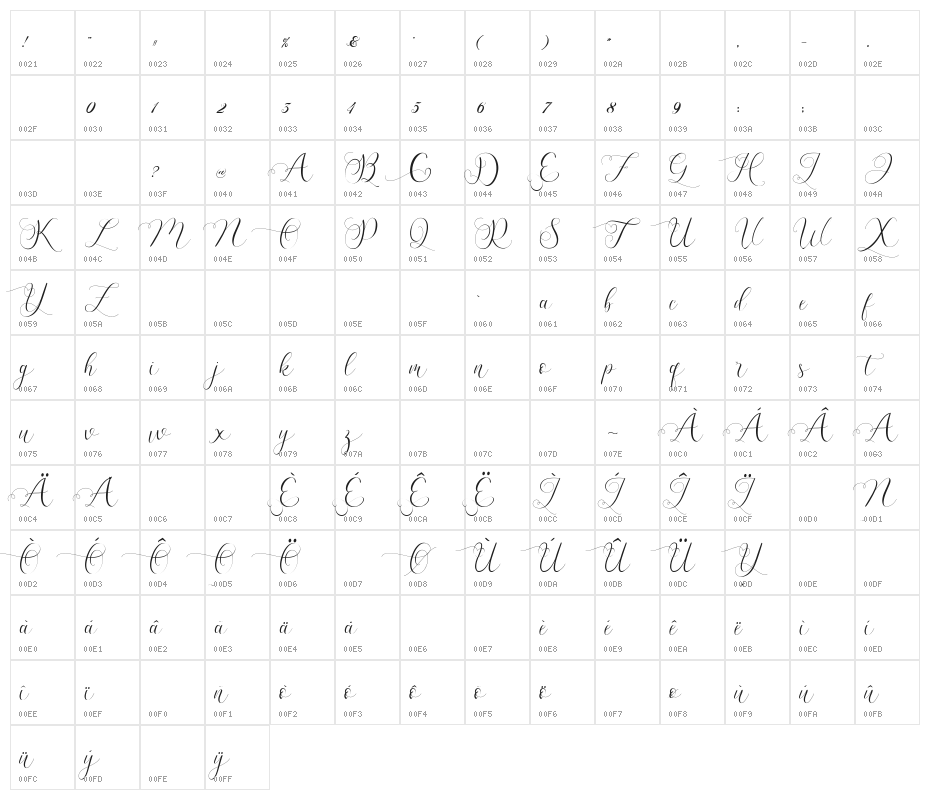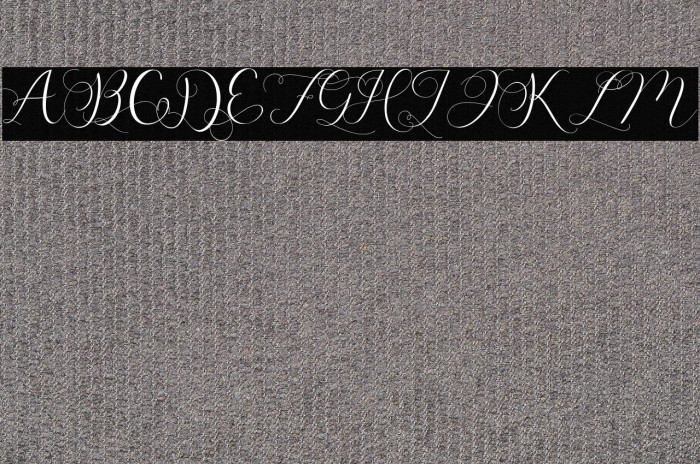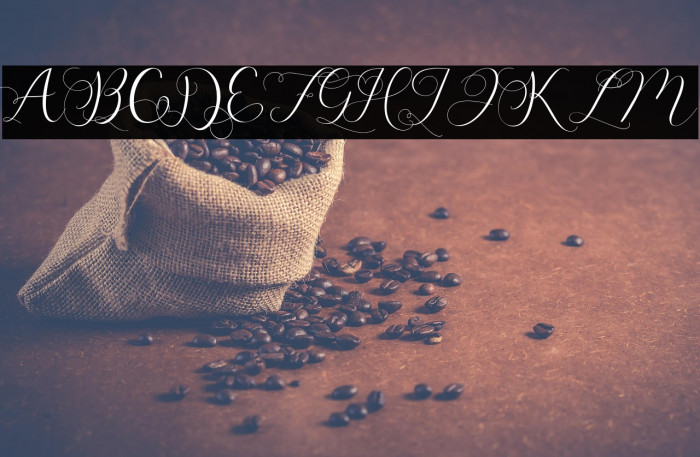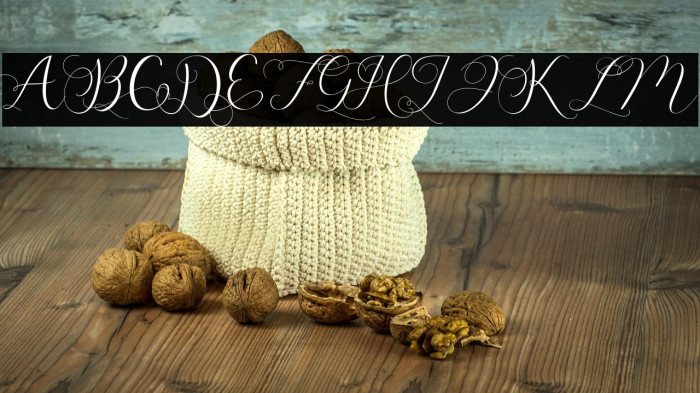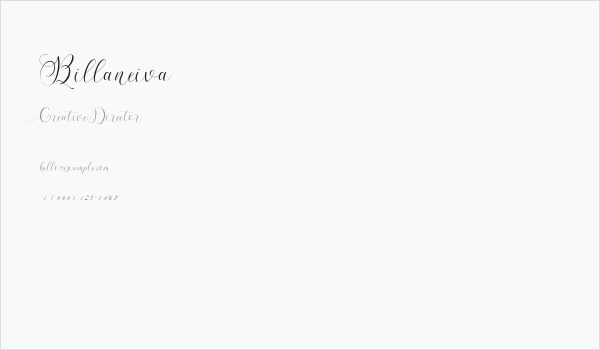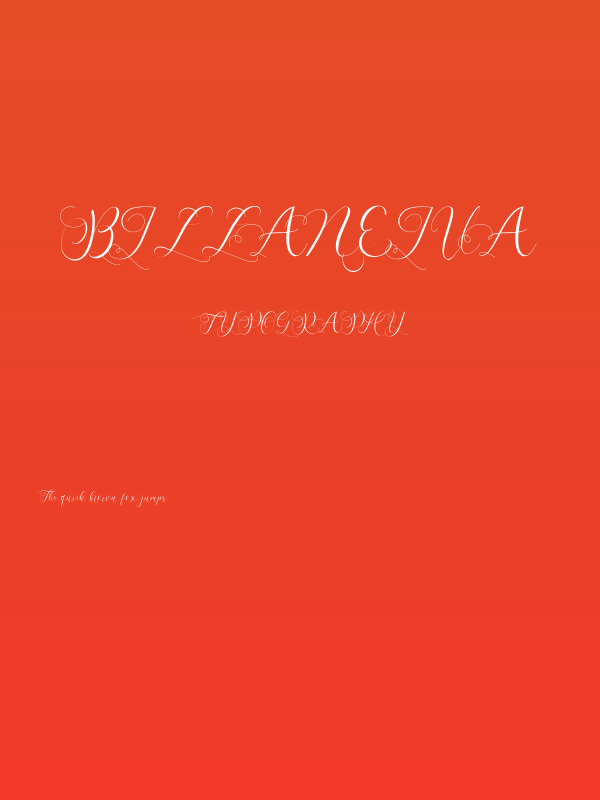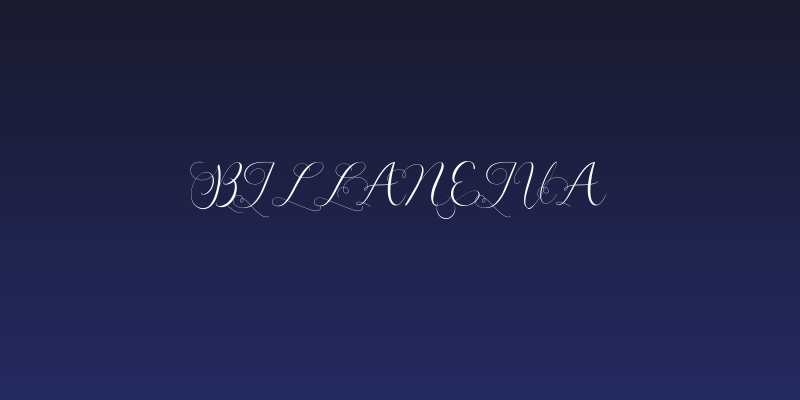
Billaneiva Font
Billaneiva Description
This elegant script font features graceful, flowing lines with intricate swashes and flourishes that give it a sophisticated and artistic appearance. The uppercase letters are particularly ornate, with extended loops and curves that add a touch of luxury and refinement. The lowercase letters maintain a consistent style, with smooth connections and a slightly more restrained design. The numerals and special characters complement the overall aesthetic, providing a cohesive look across all elements. This font is perfect for projects that require a touch of elegance and class, such as wedding invitations, formal event programs, or high-end branding materials.
| Use Case | Invitations, Branding, Decorative |
| Proposed Projects | Ideal for wedding invitations, formal event programs, and luxury branding. |